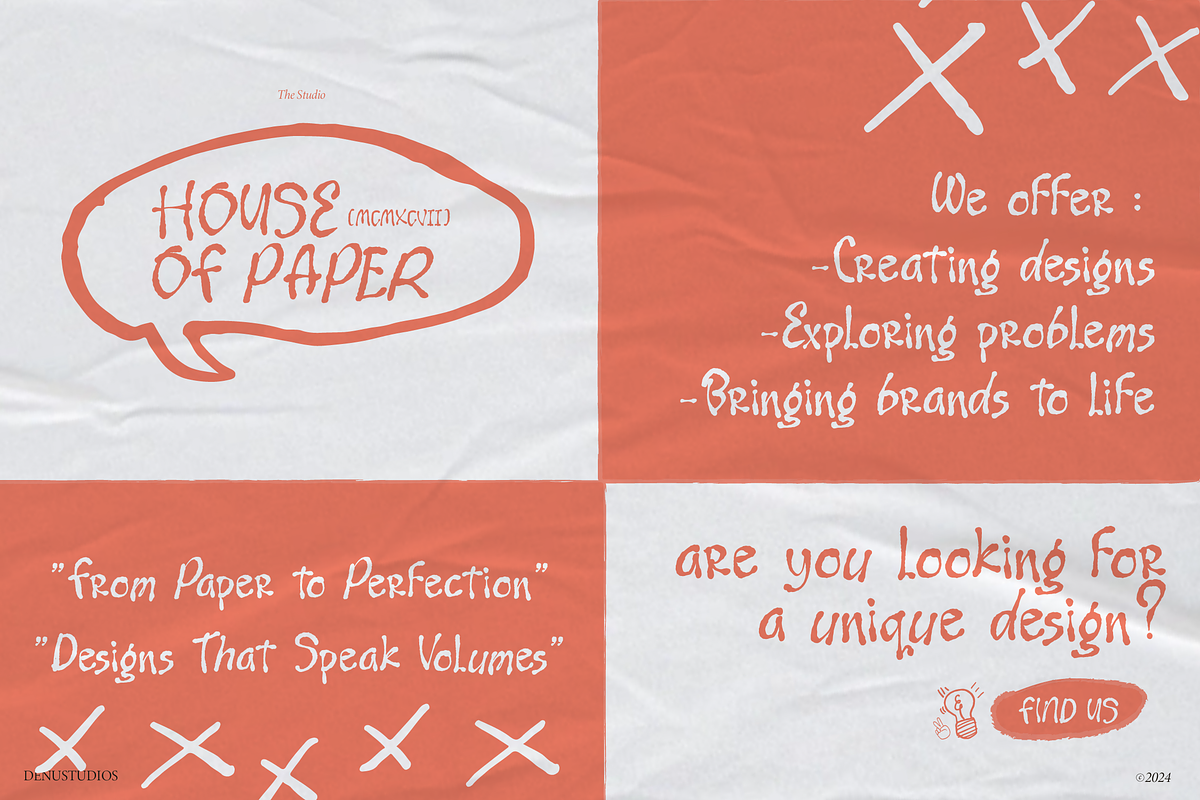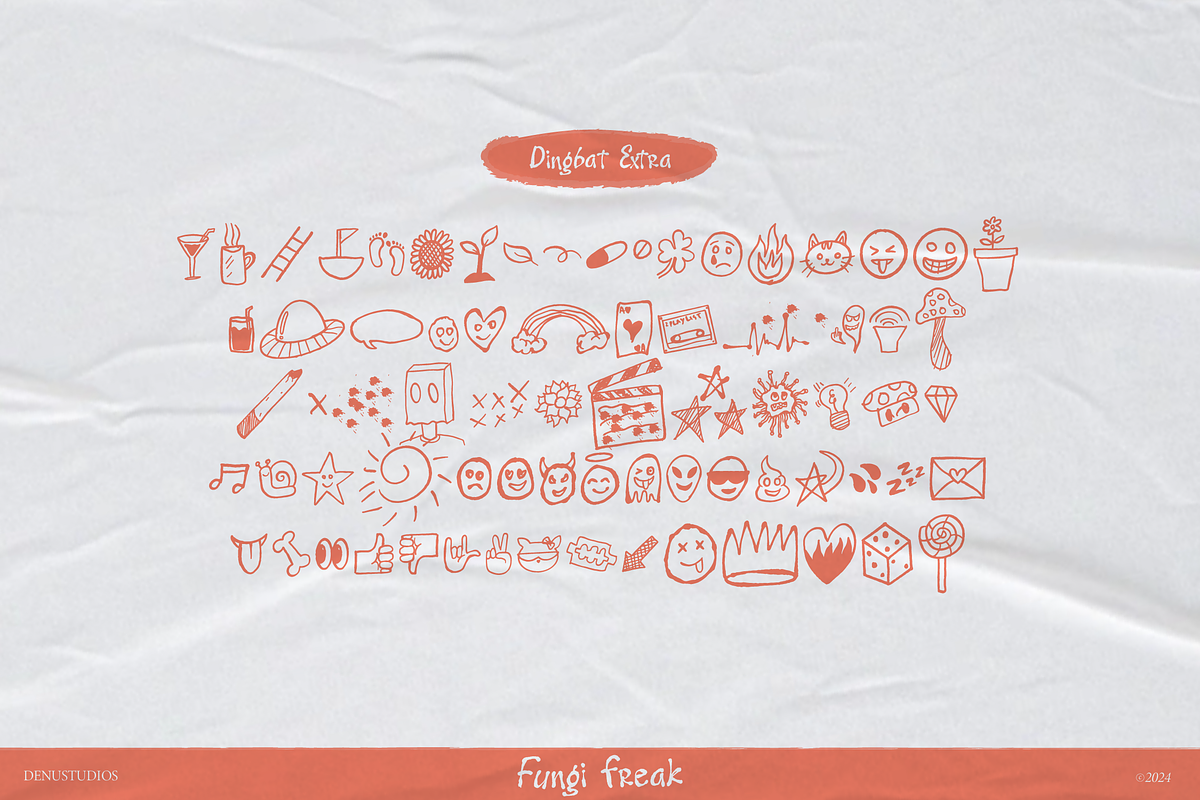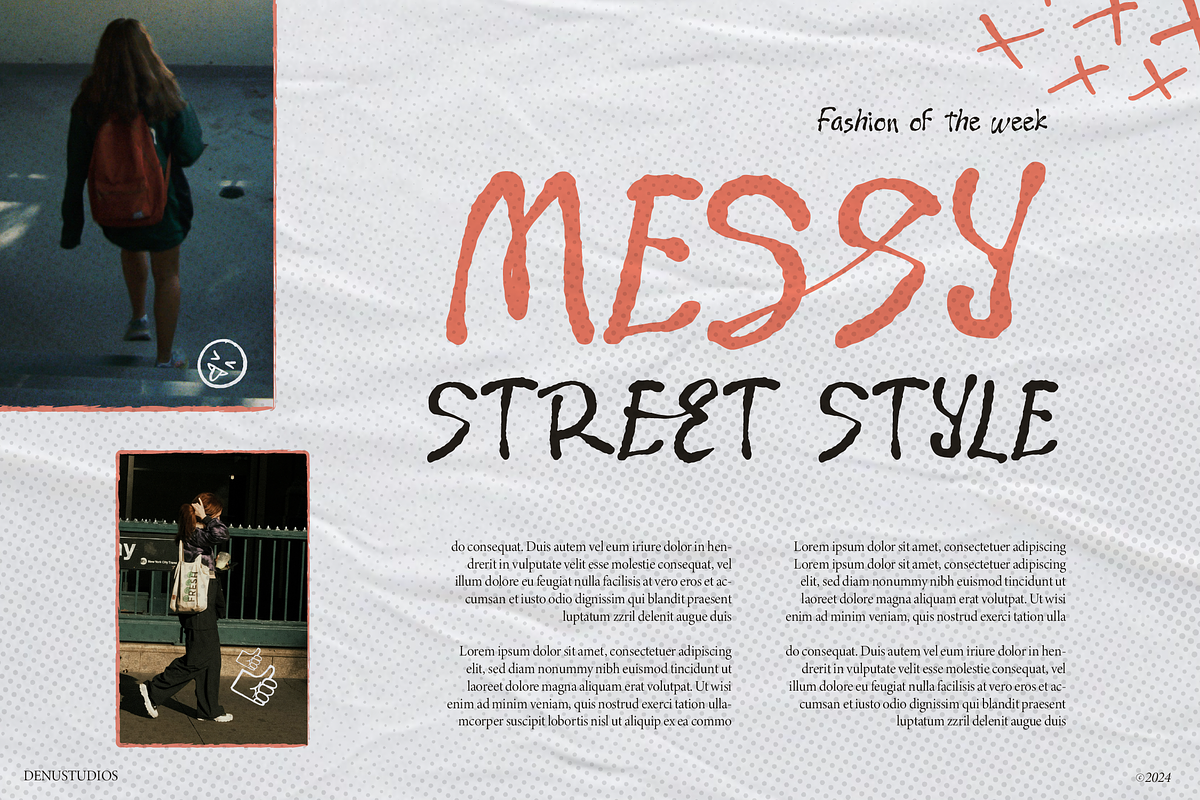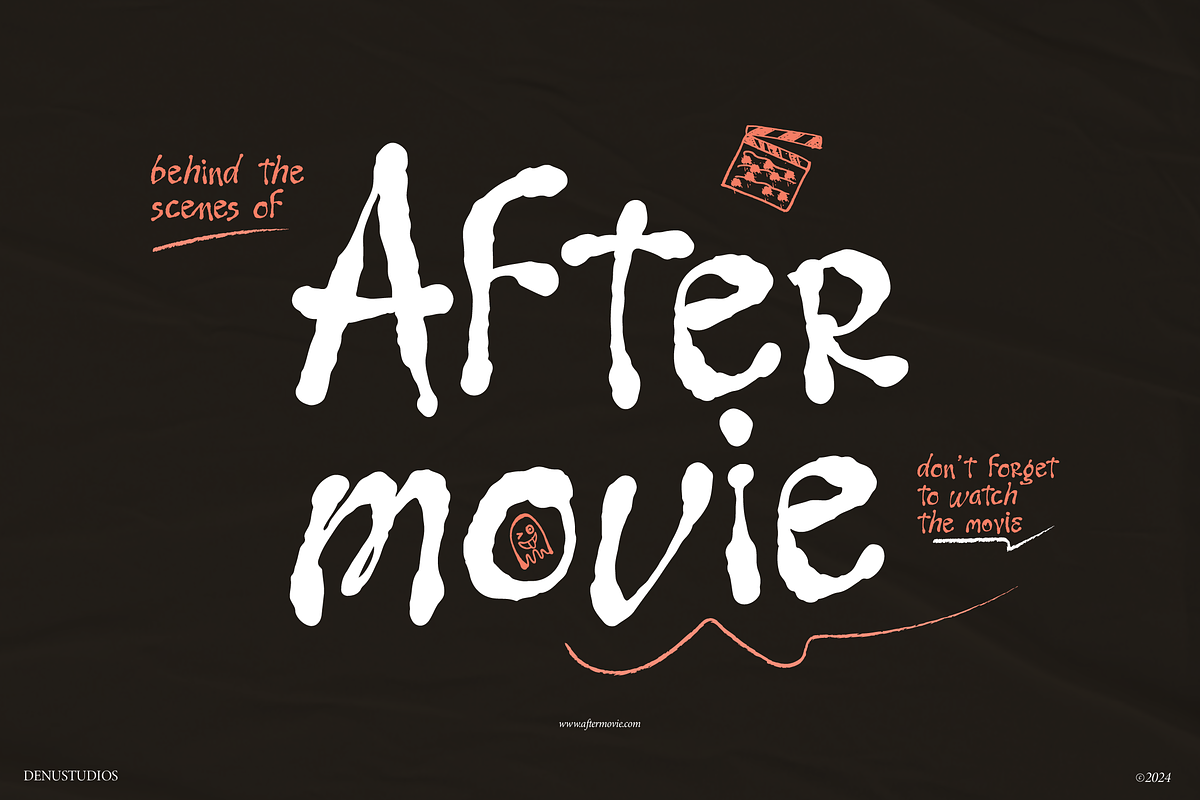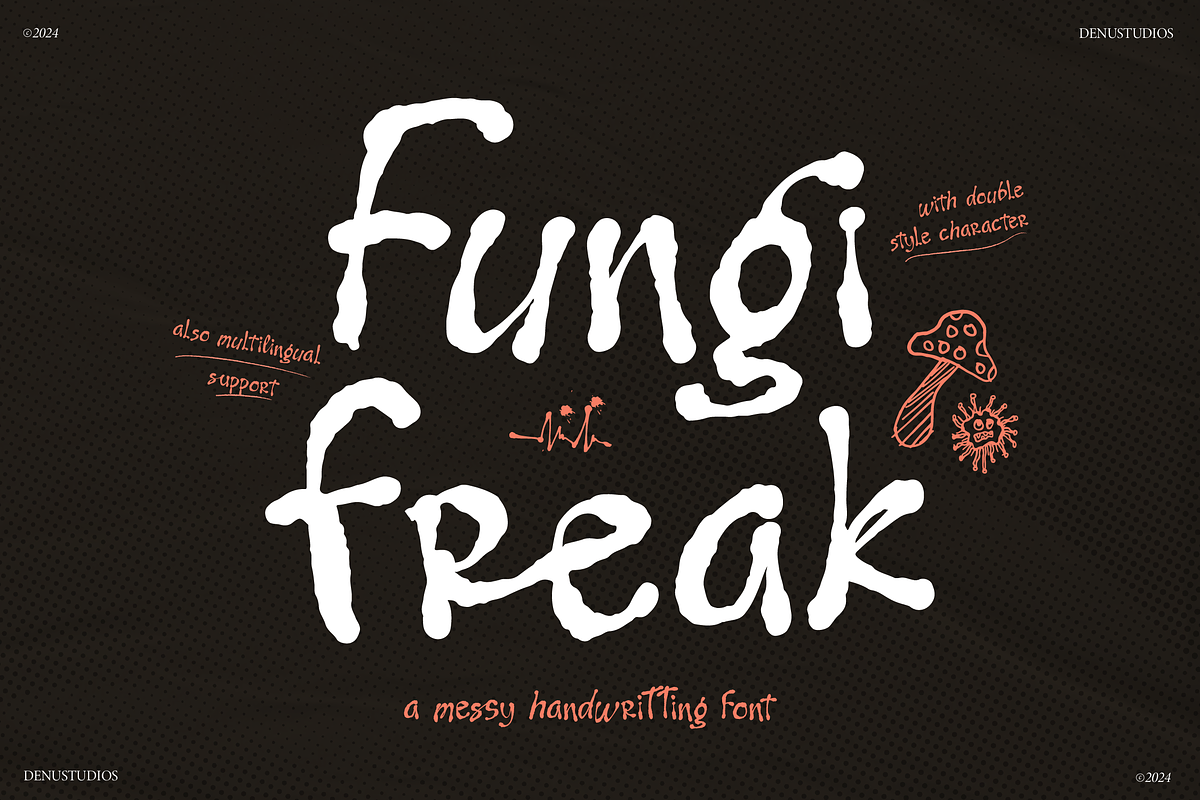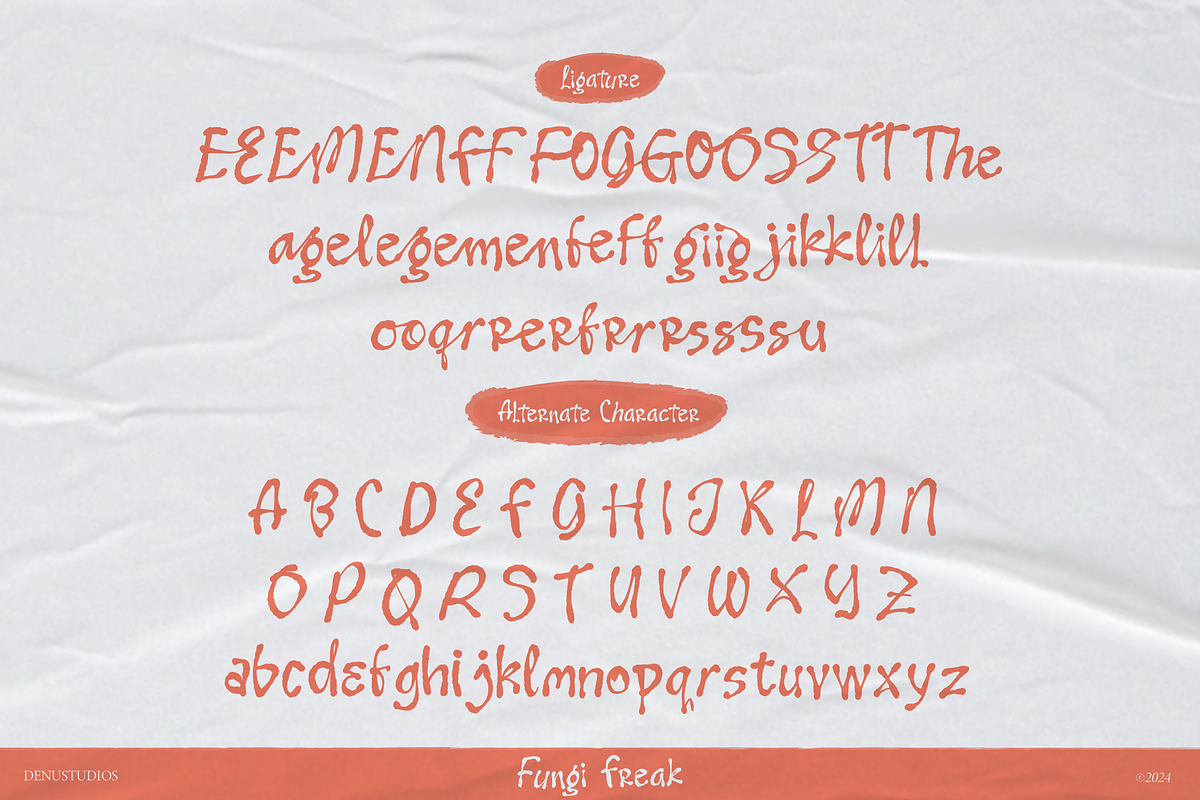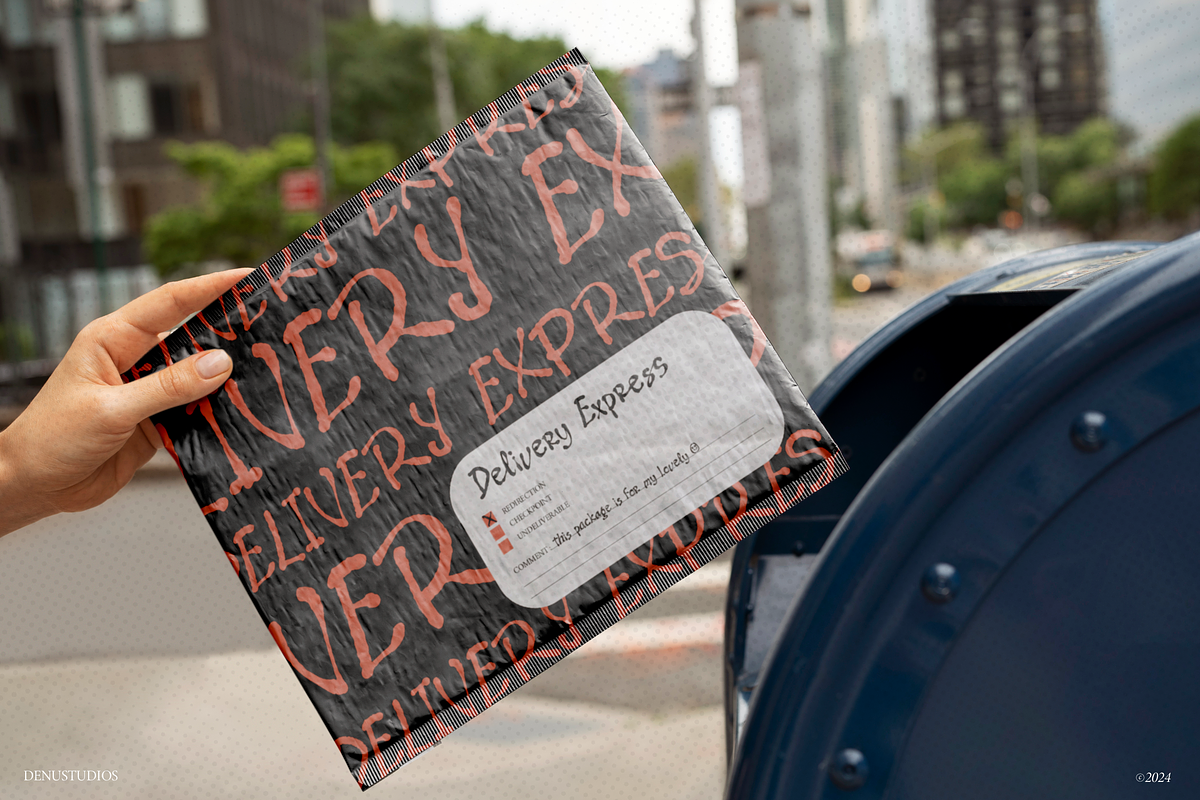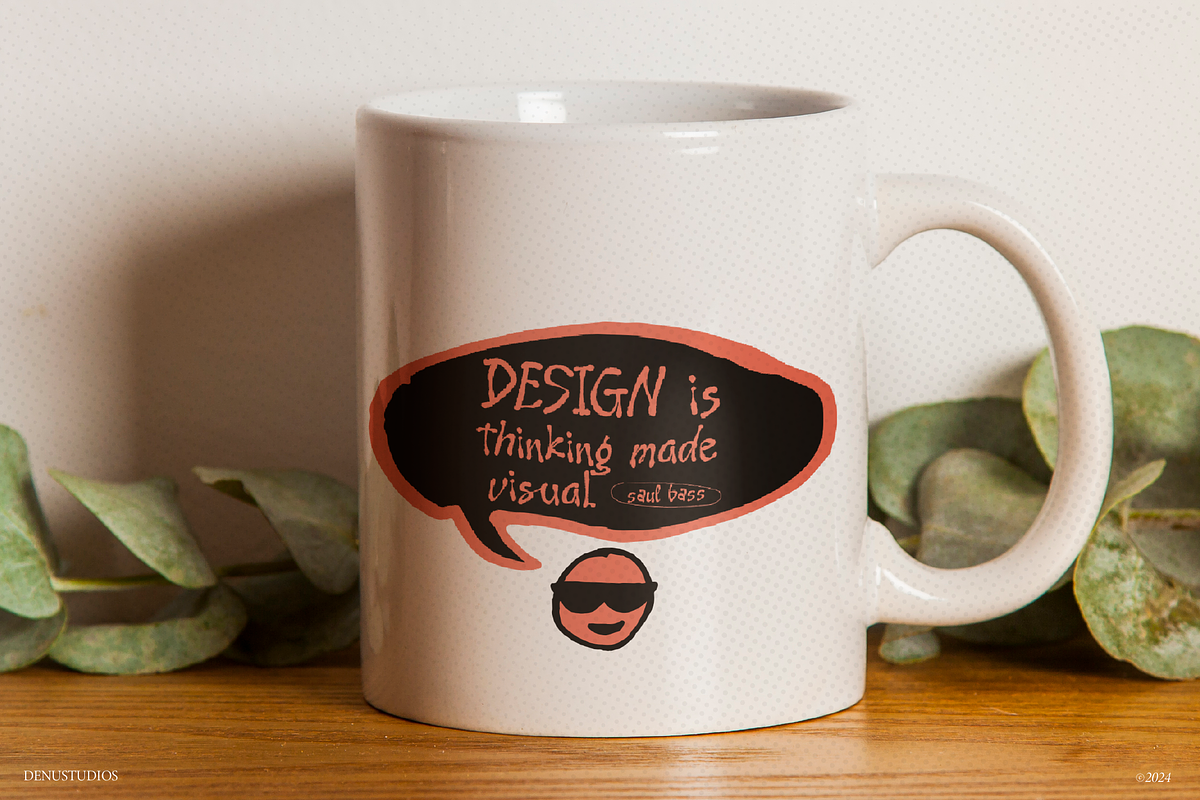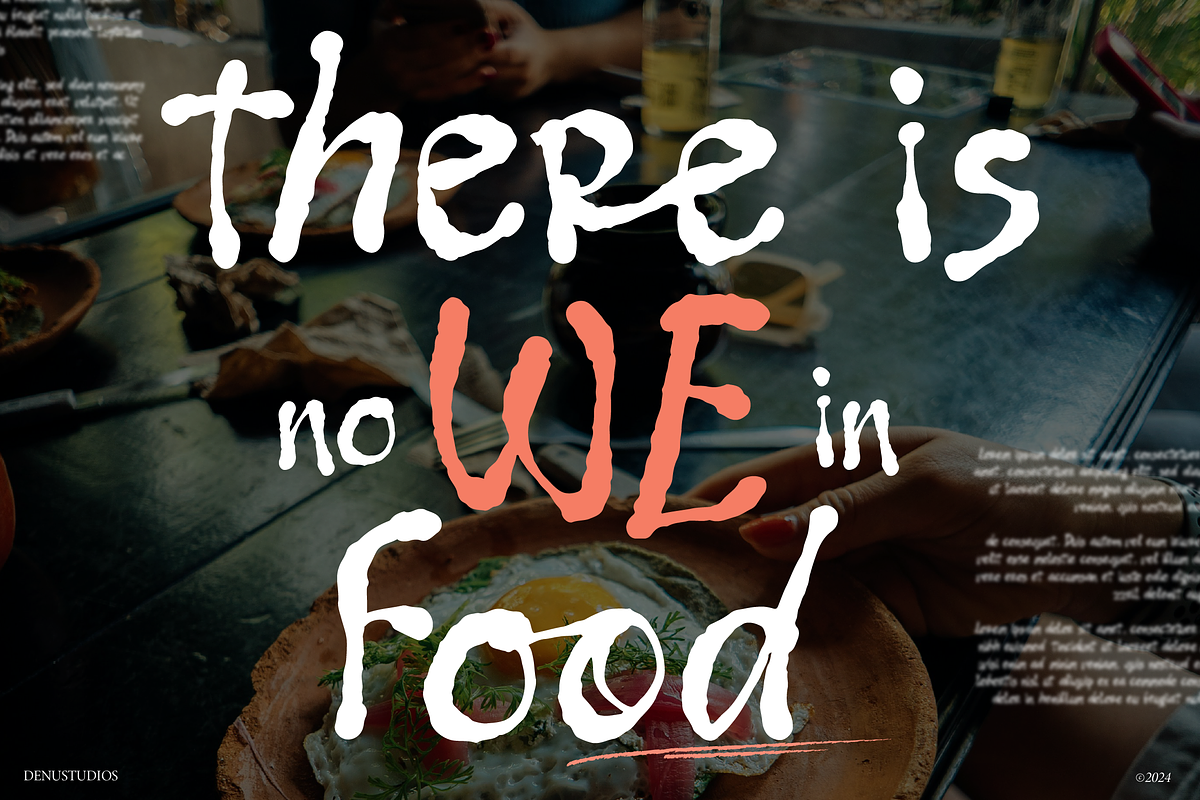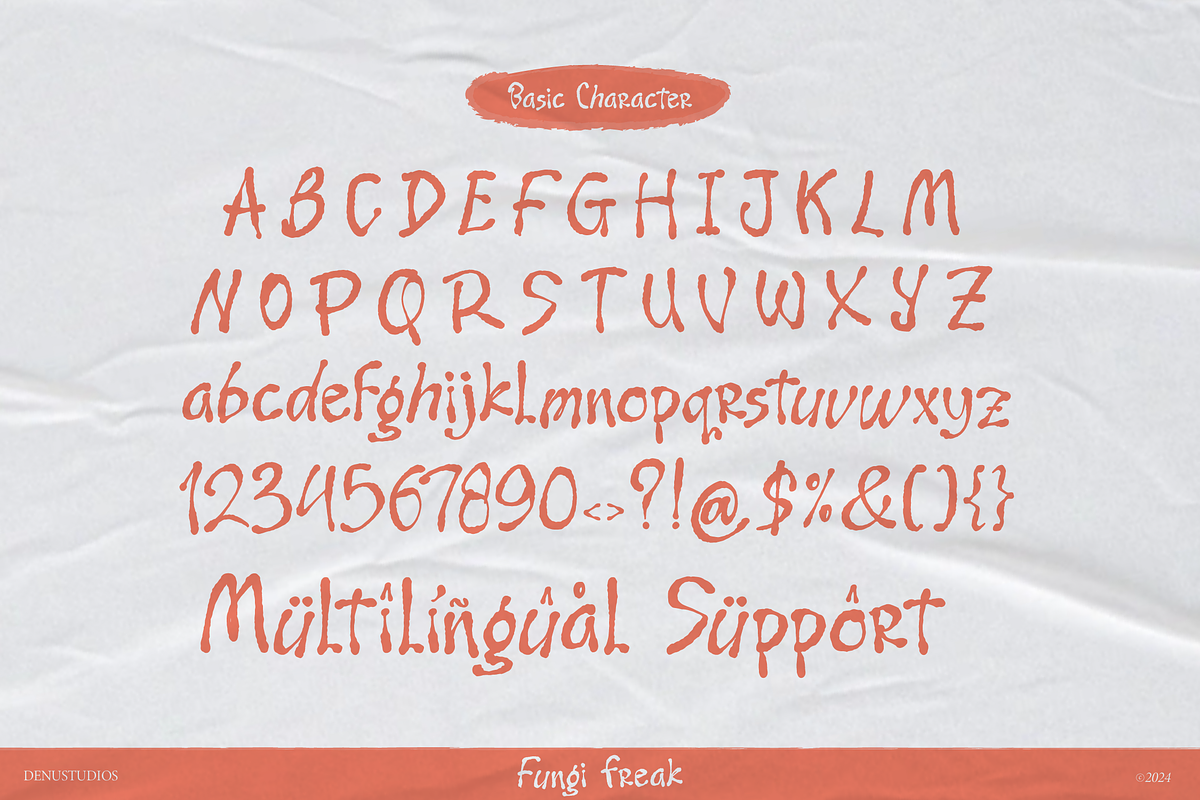
Fungi Freak | Messy Handwritting
Fungi Freak | Messy Handwritting Font, from Denustudios, suitable for any projects such as: logos, branding projects, homeware designs, product packaging, mugs, quotes, posters, shopping bags, t-shirts, book covers, name card, invitation cards, greeting cards, label, photography, watermark, special events, and all your other lovely projects that need a Messy Handwritting Font taste.